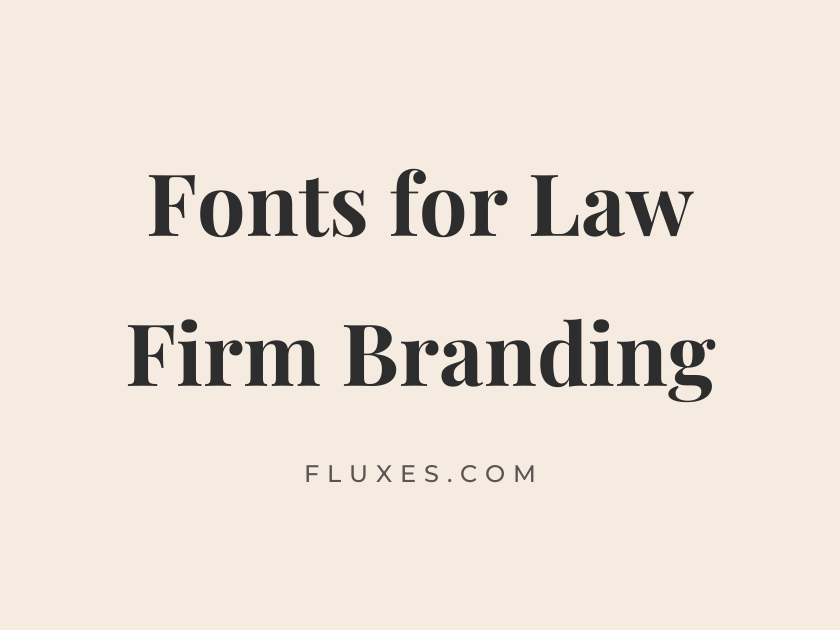
61 Best Fonts for Law Firm Branding
Law firm branding lives or dies on trust. Before a prospective client reads a single word of your bio page or engagement letter, the typeface on your logo, letterhead, and website has already made a judgment about your firm: established or upstart, formal or approachable, litigious or collaborative. Choosing the right free font for a law firm means balancing gravitas with legibility, since contracts, briefs, and client portals demand typefaces that hold up in dense paragraphs as well as on a brushed-metal lobby sign.
Google Fonts has matured into a genuine source for law firm typography, offering serious serif faces that echo engraved letterhead alongside sans serifs built for responsive websites and client intake forms. The selections here span traditional, boutique, and modern-litigation aesthetics so you can build a full identity system, from wordmark to brief template, without licensing fees.
1. Playfair Display
Trusted counsel for four generations of clients
Playfair Display brings the high-contrast elegance of an engraved brass plaque to a screen. Its sharp thins and thick stems read as established and moneyed, which is why it shows up so often in boutique and white-shoe firm logos alike.
Reserve it for headlines and the firm name itself; at body-text sizes those delicate hairlines can thin out and strain readability.
2. Libre Baskerville
Justice, integrity, and unwavering advocacy
An open-source reworking of Baskerville tuned specifically for on-screen reading, this face carries the calm authority of a printed legal brief without losing clarity on a laptop or phone.
3. EB Garamond
Serving clients with distinction since 1985
Garamond types have signaled scholarly credibility since the Renaissance, and this digital revival keeps that lineage intact. It suits firms that want to project old-world diligence, particularly estate planning, trusts, and appellate practices where a manuscript feel reinforces careful reasoning.
4. Cormorant Garamond
Elegant counsel for delicate matters
Thinner and more theatrical than EB Garamond, Cormorant Garamond works best in short bursts, a firm name on a business card or a pull quote on an about page. It leans more editorial than legalistic, so pair it with a plain sans for body copy.
5. Crimson Text
Rigorous research, relentless representation
Modeled on old-style book typefaces, Crimson Text is unfussy and warm, a good fit for firms that want their long-form articles and client resources to feel readable rather than intimidating.
6. Lora
Thoughtful advocacy for complex disputes
Lora’s slightly brushed curves soften the formality typical of legal serifs, making it a favorite for firm blogs and knowledge-base content. It stays crisp at small sizes, which matters for footnote-heavy legal writing online.
7. Merriweather
Built to be read, brief after brief
Merriweather was engineered from the ground up for screen legibility, with sturdy letterforms that survive small sizes and low-contrast displays. That practical backbone makes it one of the safest choices for a firm’s main body text, where clients will actually read paragraphs of legal explanation rather than skim a headline.
It pairs comfortably with almost any of the sharper display serifs above when you need a workhorse text face beneath a more decorative logotype.
8. PT Serif
Straightforward answers to difficult questions
A no-nonsense transitional serif with a hint of humanist warmth, PT Serif works well for firms that want to look established without veering into ornate.
9. Noto Serif
Multilingual counsel for global business
Part of Google’s Noto superfamily, this face was built to cover an enormous range of scripts and languages, a genuine advantage for immigration, international trade, or cross-border firms serving multilingual clients.
10. Spectral
Precision drafted, patiently reviewed
Spectral was designed for long-form digital reading, and it shows in its generous spacing and calm rhythm. Use it for firm publications, whitepapers, or client alerts where paragraphs run long.
11. Vollkorn
Grounded advice, generation after generation
Vollkorn means “wholegrain” in German, and the name fits: sturdy, unpretentious, slightly old-fashioned in the best way. It reads as dependable rather than flashy, a good match for family or community law practices.
12. Bitter
Clear terms, no fine print surprises
A slab serif with softened corners, Bitter bridges the gap between a traditional serif’s authority and a sans serif’s clarity. It holds up nicely in interface contexts like client portals and dashboards.
13. Domine
Established practice, modern approach
Domine was purpose-built for headlines on content-heavy sites, so it carries just enough weight to anchor a firm’s homepage banner without competing against body copy set below it.
14. Cardo
Classical training, contemporary counsel
If your firm serves multilingual clients, prioritize families like Noto Sans, Noto Serif, or Assistant that offer consistent character support across scripts.
Wrapping up
Strong law firm branding rarely needs more than two or three coordinated typefaces, but knowing the full range of credible, free options makes that final pairing far easier to get right. Download a handful of these, set them against your firm’s actual name and tagline, and see which one earns the client’s trust before a single word of legal advice is given.